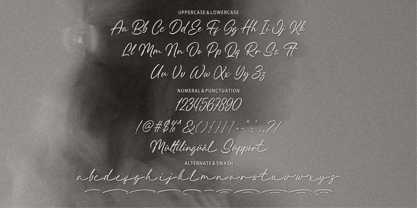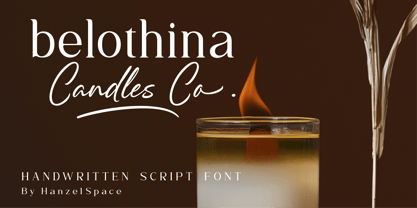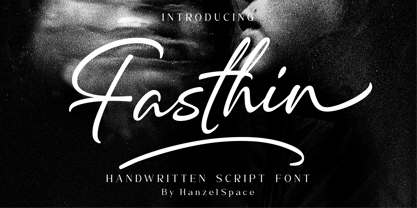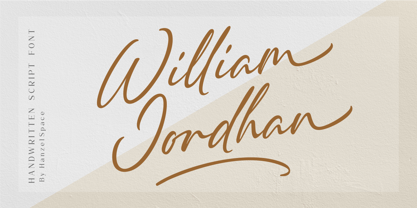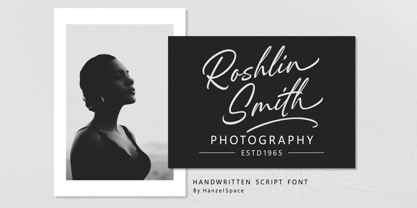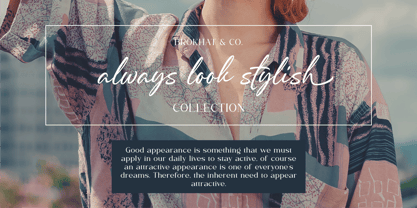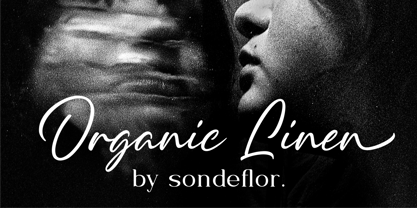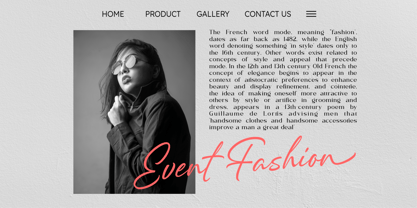
Fasthin
by Hanzel Space
The Fasthin Font Family was designed by Hanief Farandi and published by Hanzel Space. Fasthin contains 1 styles. More about this family
Proudly present Fasthin - Handwritten Script Font that has own unique style & modern look. This typeface is perfect for an elegant & luxury logo, book or movie title design, fashion brand, magazine, clothes, lettering, quotes, and so much more.
• Full Set of standard alphabet and punctuation
• Extra set of ending swashed lowercase
• Handwritten ligatures
Designers: Hanief Farandi
Foundry: Hanzel Space